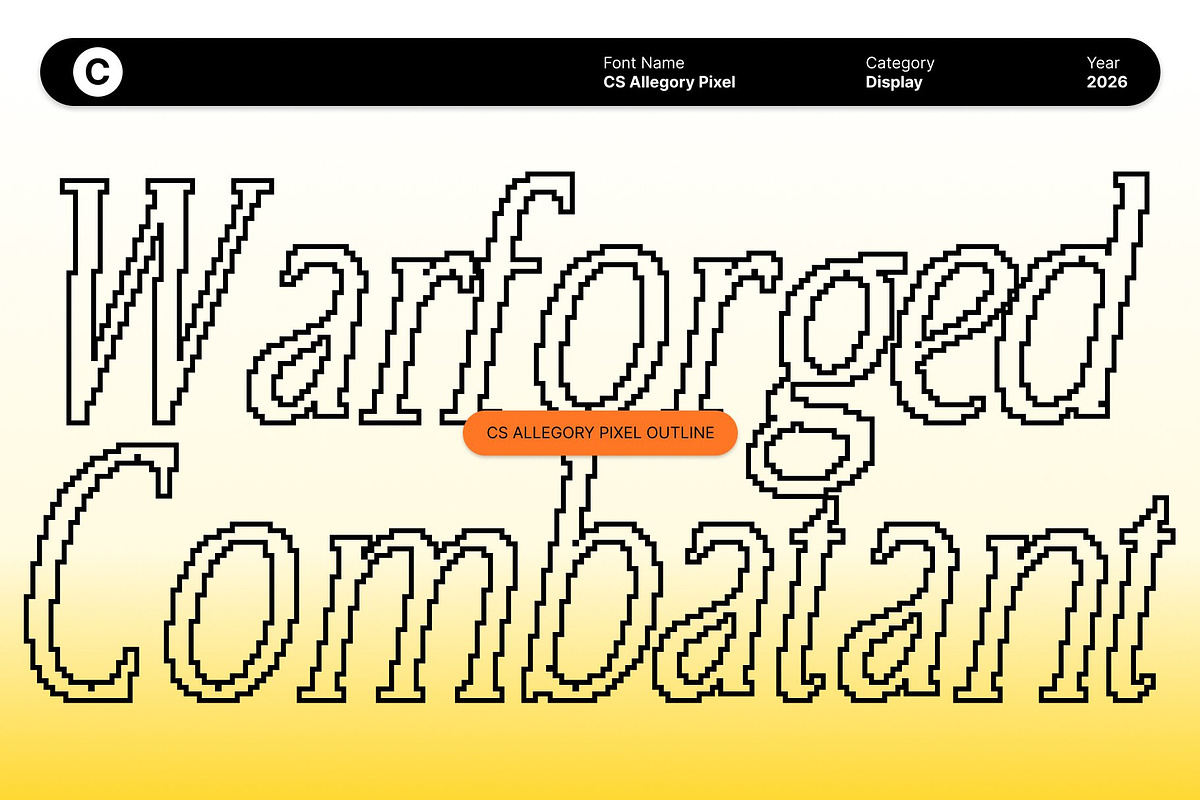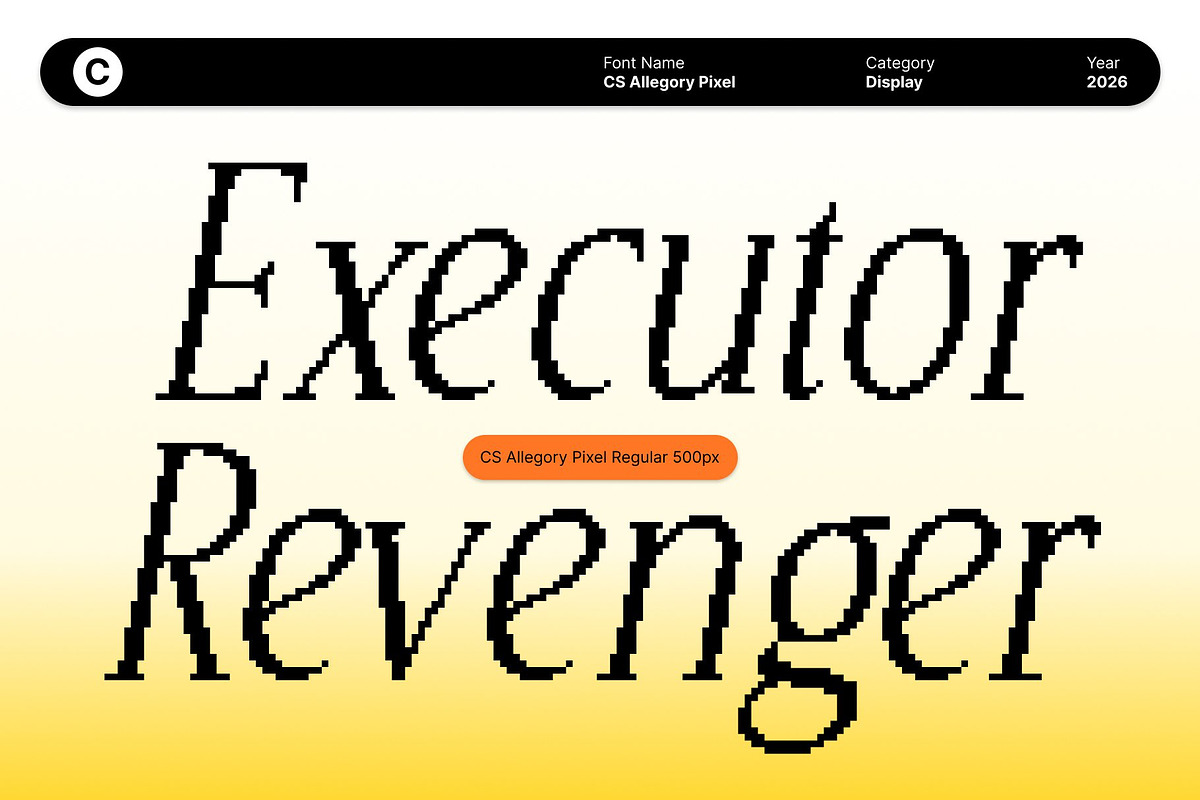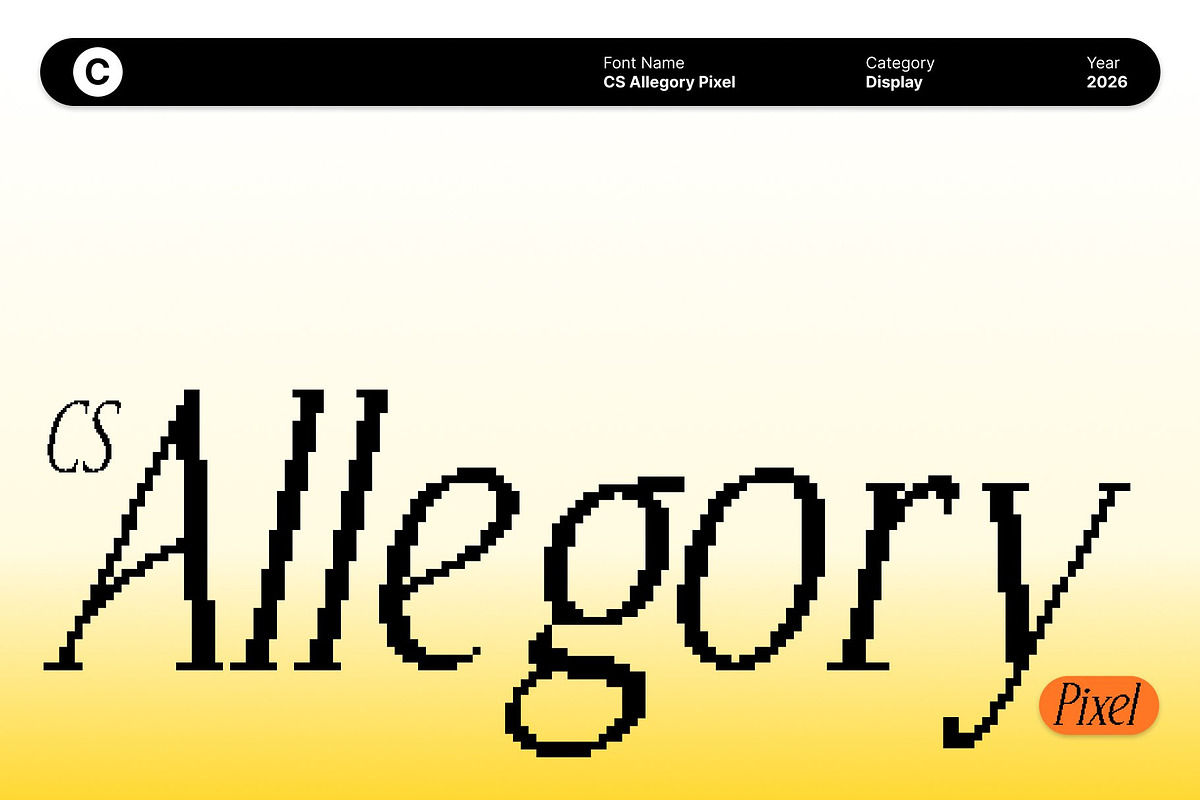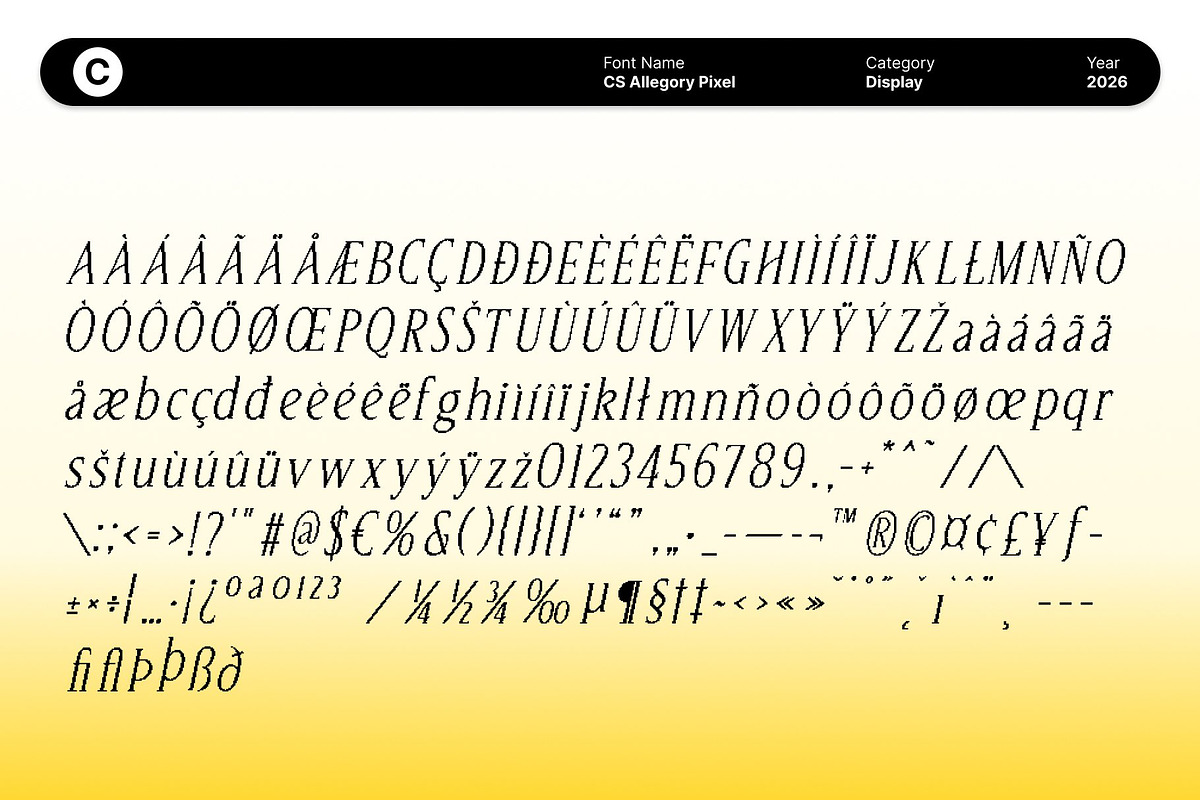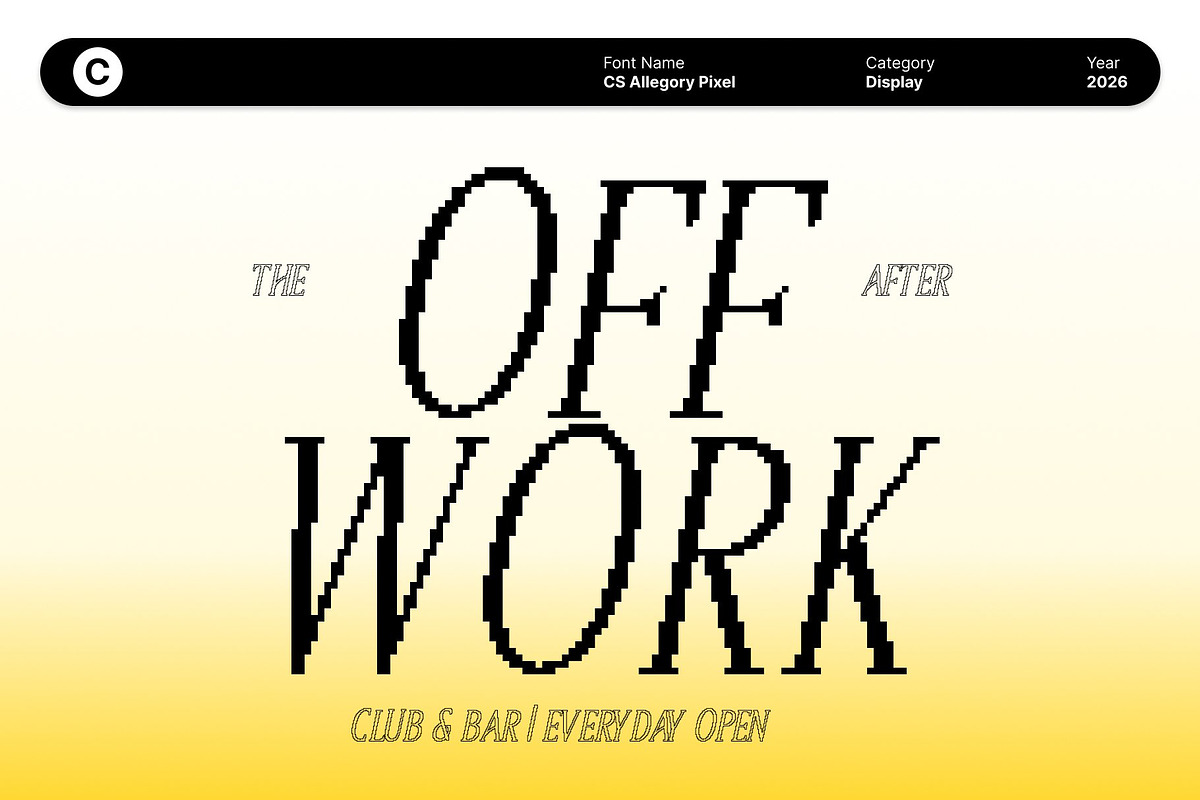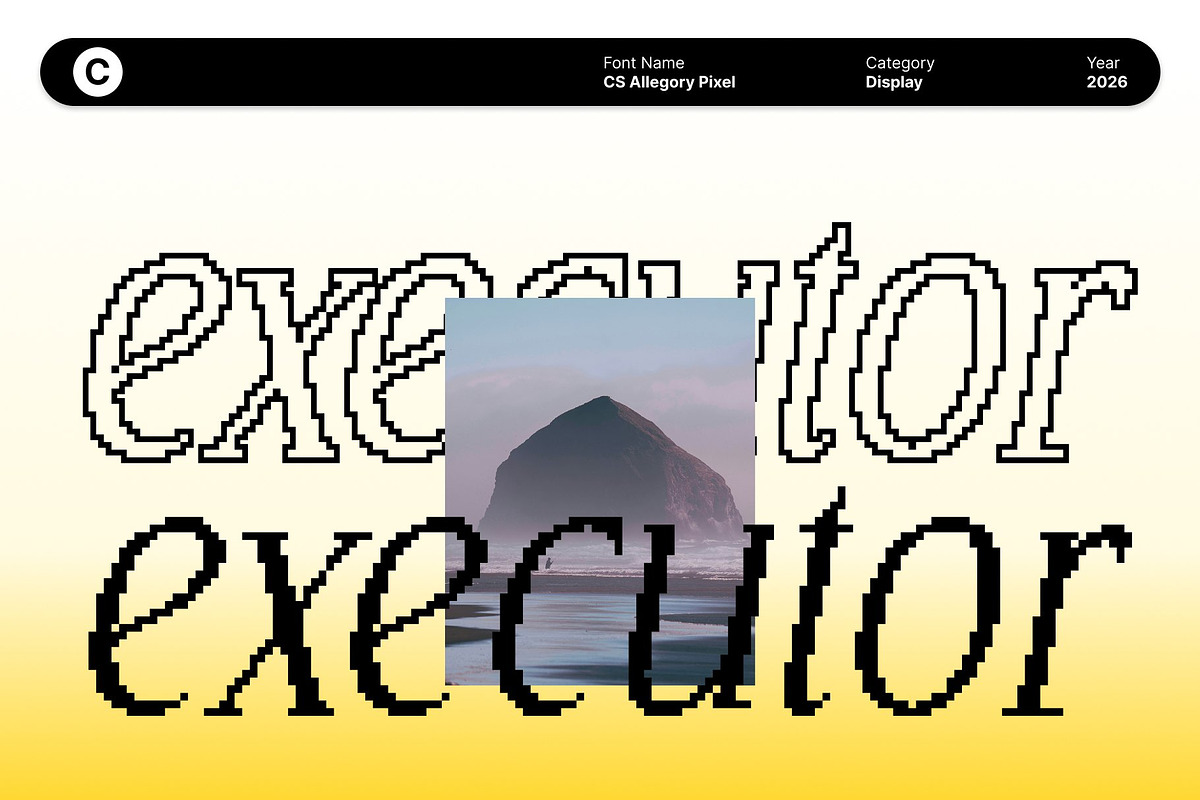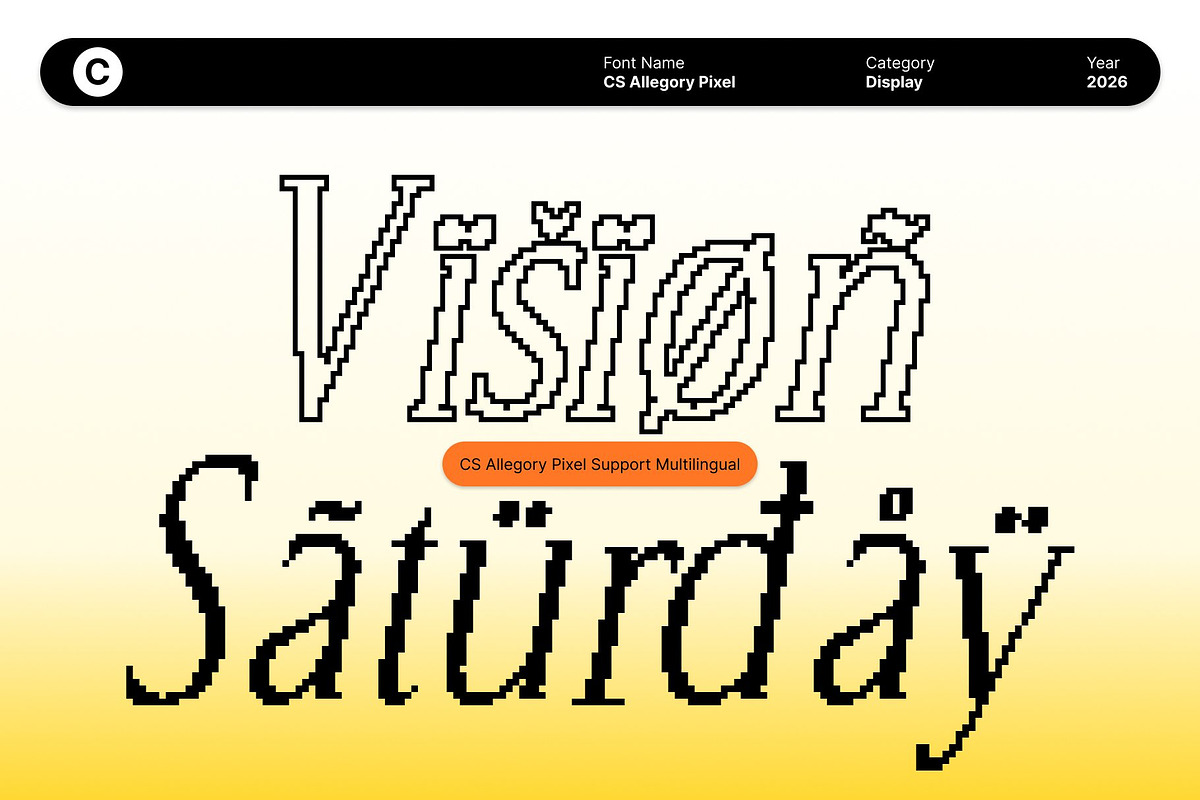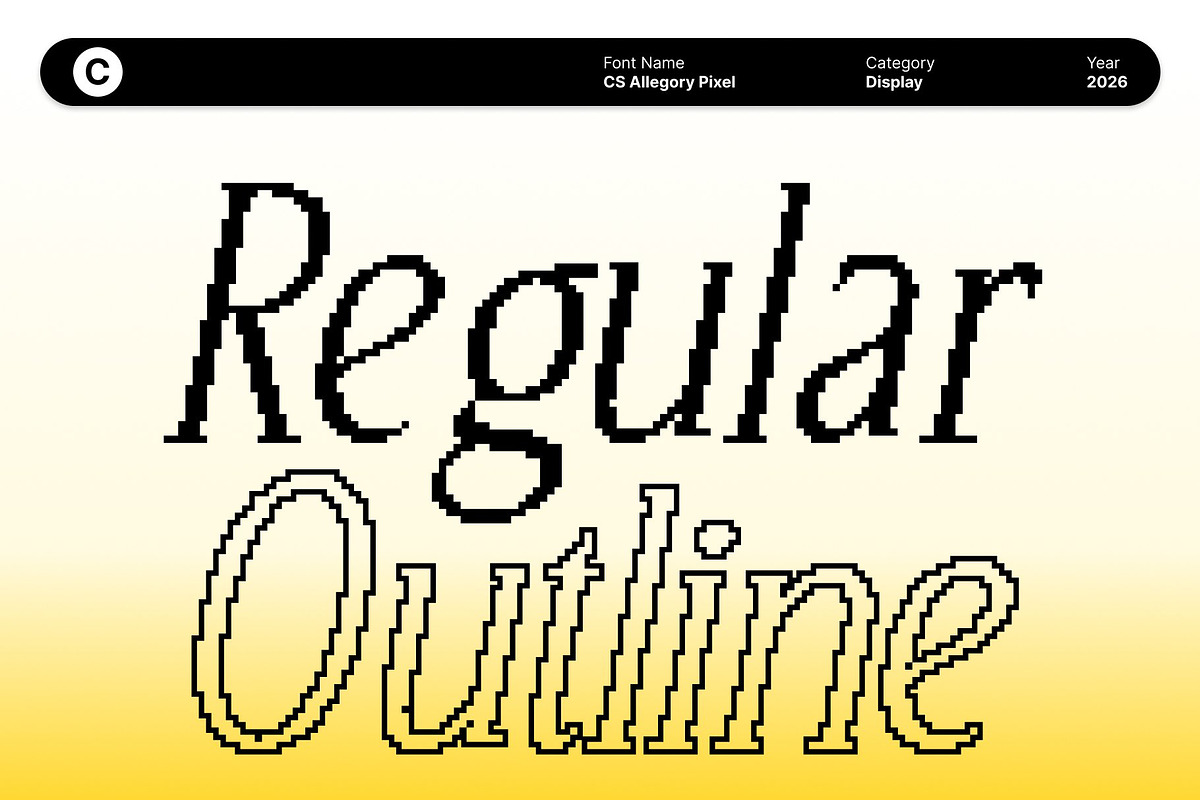
CS Allegory Pixel
CS Allegory Pixel – Timeless Sophistication in Serif Form
Elegant Serif Inspired by Renaissance Craftsmanship This is an elegant serif font that draws inspiration from the refined artistry of Renaissance-era letterforms. Its graceful curves, classic proportions, and thoughtful structure evoke a sense of heritage and intellectual depth, while its clean execution ensures relevance in modern design contexts. Every character is carefully composed, delivering a timeless aesthetic that feels both cultured and contemporary.
Refined Curves for a Luxurious Impression Each letter is sculpted with smooth curves and precise detailing, creating a luxurious and confident visual tone. The subtle contrast between thick and thin strokes, paired with elegant serif endings, gives the font a polished presence ideal for conveying prestige, craftsmanship, and refinement across print and digital media.
A Perfect Balance of Classic and Modern Design This font seamlessly bridges classical influence and modern typographic standards. Rooted in Renaissance tradition yet adapted for today’s design needs, it offers exceptional versatility. This harmony allows the font to elevate traditional compositions while also adding depth and elegance to clean, minimalist layouts.
Ideal for Editorial, Branding, and Packaging Perfect for editorial design, book covers, luxury branding, high-end packaging, and refined logotypes, this font brings authority and beauty to any project. Whether used in striking headlines or sophisticated text compositions, it communicates quality, heritage, and enduring elegance with every letter.
- CS Allegory Pixel Regular
- CS Allegory Pixel Outline